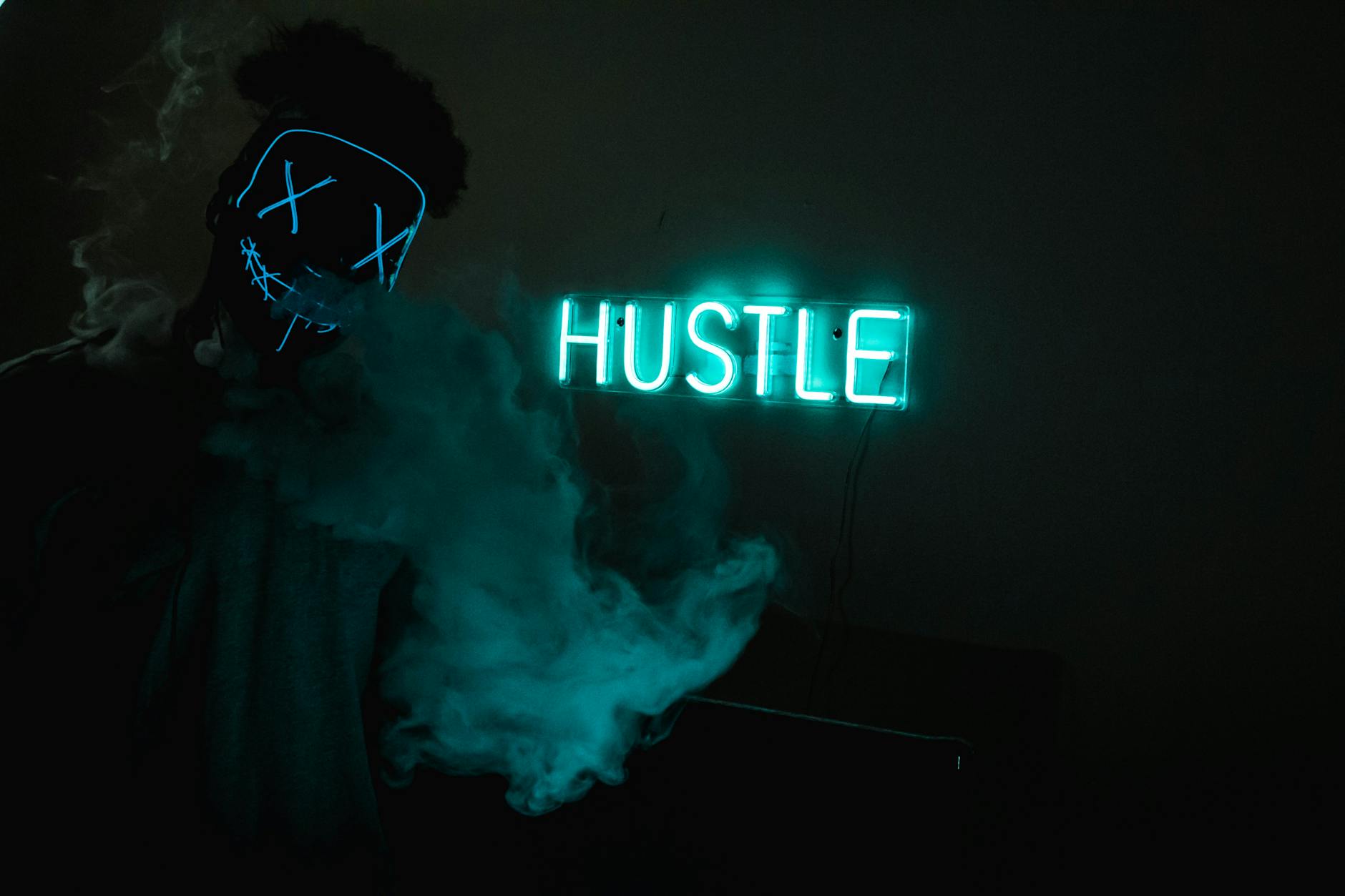
The Weight of Light: Why Your Typography Needs an Overhaul for Dark Mode UI
Dark mode is no longer a "nice-to-have" feature; it is a user expectation. Whether it’s to reduce eye strain in low-light environments or to save battery life on OLED screens, users are flipping the switch. However, many designers and developers make the mistake of assuming that a dark mode implementation is a simple matter of inverting the color palette.
If you take your light-mode typography—meticulously kerned and weighted—and simply turn the text white on a black background, you’ll notice something strange: the text looks "fatter," more blurred, and harder to read. This is the phenomenon of the "Weight of Light."
The Science of Halation
The primary reason typography needs an overhaul in dark mode is an optical illusion known as halation. In a dark-on-light setting (traditional print style), the dark letters absorb the light from the background, keeping the edges crisp.
However, in a light-on-dark setting, the light from the characters "bleeds" into the surrounding dark space. This causes the white text to appear thicker than its dark counterpart, even if they share the exact same pixel width. To the human eye, light text on a dark background vibrates, creating a "glowing" effect that can make thin lines appear medium and medium lines appear bold.
Adjusting Font Weight for Dark Mode
To combat halation, the first step is to reduce the font weight of your body text. If you are using a font weight of 400 (Regular) for your light mode, you may find that a weight of 300 or 350 (Light/Book) provides a more equivalent visual experience in dark mode.
Variable fonts are a game-changer here. Instead of jumping between rigid weights like 400 and 700, variable fonts allow you to shave off just enough weight to compensate for the light bleed without making the text look too thin.
CSS Implementation with Variable Fonts
:root {
--font-weight-body: 450;
--text-color: #1a1a1a;
--bg-color: #ffffff;
}
@media (prefers-color-scheme: dark) {
:root {
/* Slightly lighter weight to compensate for halation */
--font-weight-body: 400;
--text-color: #e0e0e0;
--bg-color: #121212;
}
body {
font-variation-settings: 'wght' var(--font-weight-body);
color: var(--text-color);
background-color: var(--bg-color);
}
The High Contrast Trap
A common reflex is to use pure white (#FFFFFF) on a pure black (#000000) background. While this technically offers the highest contrast ratio, it is often painful for the user. High-contrast white-on-black causes "halation" to be at its most aggressive, leading to significant eye fatigue.
Instead, aim for an "off-white" or a very light gray (like #E0E0E0 or #F5F5F5) for your text, and a deep charcoal or navy for the background. This softens the edge of the characters and makes the reading experience much smoother over long periods.
Tracking and Letter Spacing
Because light text appears to occupy more space, the characters can seem to "crowd" one another in dark mode. To improve legibility, you should consider slightly increasing the letter-spacing (tracking).
Even a small increase of 0.01em or 0.02em can provide the necessary breathing room to prevent the letters from blurring together in the user's peripheral vision.
/* Dark Mode specific typography tweaks */
@media (prefers-color-scheme: dark) {
body {
letter-spacing: 0.015em;
-webkit-font-smoothing: antialiased;
-moz-osx-font-smoothing: grayscale;
}
Testing for Accessibility
When overhauling your typography for dark mode, always check your contrast ratios against WCAG 2.1 guidelines. While we want to reduce the "harshness" of the contrast, we must ensure that the text remains accessible to users with visual impairments.
A contrast ratio of at least 4.5:1 for body text is the standard. Interestingly, because of how our eyes perceive light, you might find that a ratio that looks "too low" in light mode actually feels perfectly legible in dark mode—but you should always stick to the mathematical standards to ensure universal access.
Conclusion
Designing for dark mode is an exercise in optical physics as much as it is in aesthetics. By acknowledging that light text carries more visual "weight" than dark text, you can make informed decisions about font weights, tracking, and color choice. Your users' eyes will thank you for the extra effort in creating a UI that isn't just a color swap, but a thoughtfully engineered reading experience.